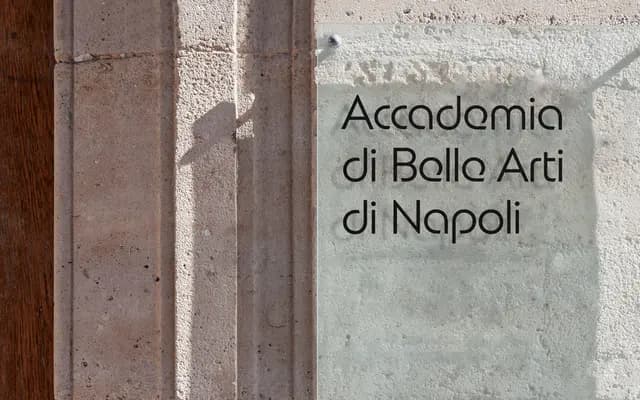
New Astro specimen from Newlyn
A Bauhaus-influenced display typeface drawing on 1980s and 90s toy packaging and brand graphics, offered in standard and soft rounded variants across five weights.
Developed during the COVID lockdown, the design borrows from ITC Bauhaus as it appeared in the Playmobil logo and other toy-era brand graphics, while introducing slanted cuts on b, d, p and q, a compact s after Aldo Novarese's STOP, and a cleaner minimal e. A second subfamily, New Astro Soft, rounds the terminals to recapture the original Playmobil feel. Both subfamilies carry an extensive stylistic set covering letters such as a, s, y, w, A, E, F, L, S and X to shift the tone from playful to structured.
A bold, compact geometric typeface rooted in ITC Bauhaus and 1980s–90s toy branding aesthetics, designed primarily for headlines and branding rather than continuous text.